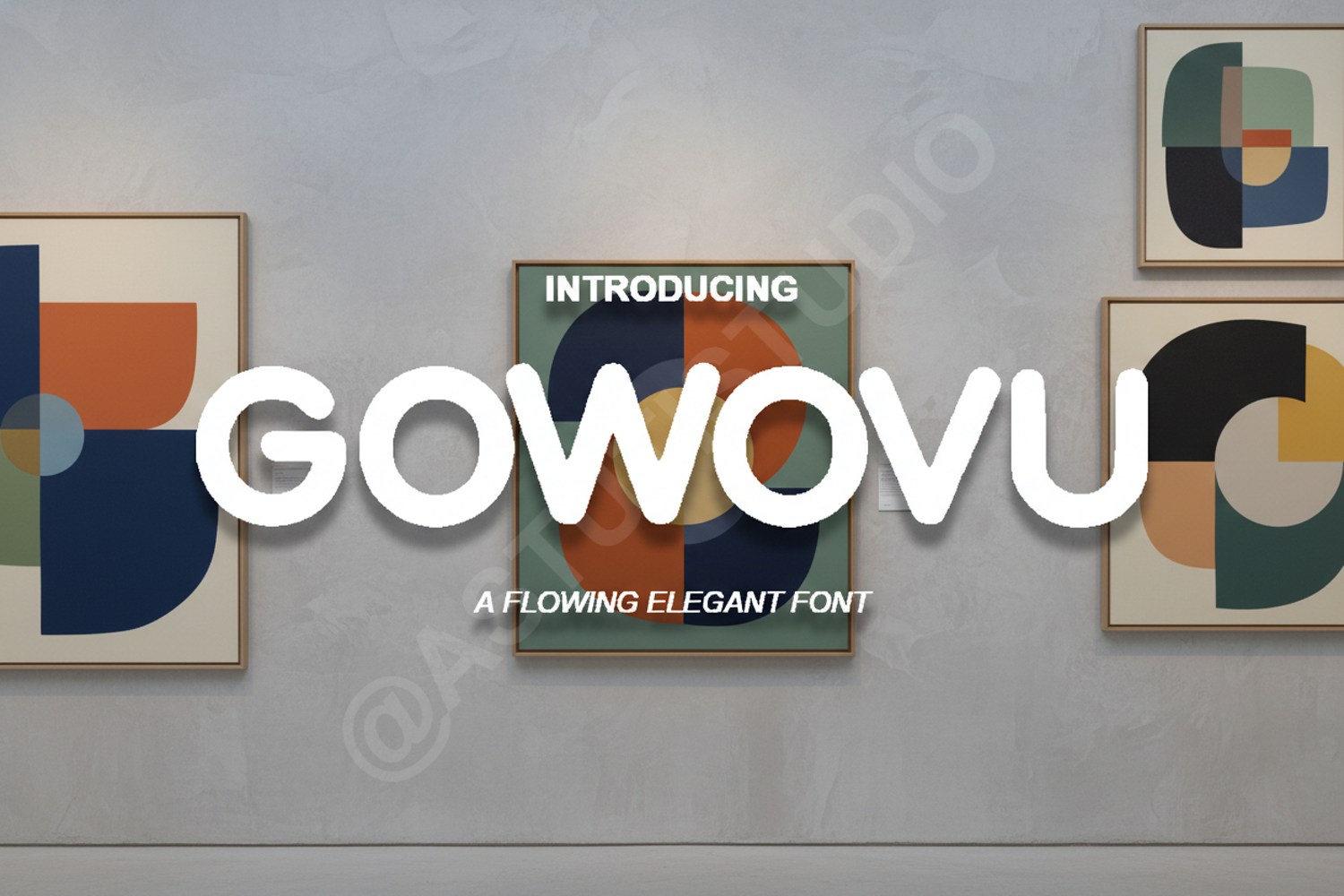
Gowovu - Modern Minimalist Sans Serif Font
Gowovu
Gowovu is a premium sans serif typeface designed for creators who demand elegance and precision. With its clean lines and contemporary aesthetic, this font brings a sophisticated touch to any project. Whether you are working on a high-end brand identity or a minimalist editorial layout, Gowovu provides the perfect balance of style and readability, making it a versatile addition to your design toolkit.
- Professional Branding and Visual Identity
- Modern Logo Design and Typography
- Social Media Graphics and Minimalist Posts
- Website Headers and UI/UX Design
- Editorial Layouts and Magazine Spreads
- Luxury Packaging and Print Media